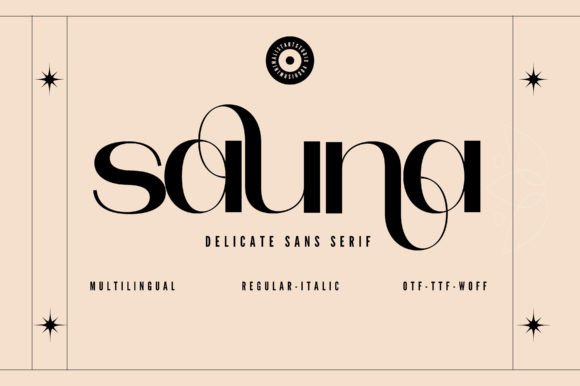
Are you looking for a font that screams elegance and sophistication? Look no further than Sauna Font! Created by Minimalistartstudio, Sauna Font is the epitome of class and refinement in the world of typography.
Sauna Font is a sans-serif font that is perfect for headlines and other eye-catching design elements. Its clean lines and minimalist approach make it a popular choice for high-end brands, luxury fashion labels, and elegant websites. This font exudes sophistication and style, making it the perfect choice for anyone looking to make a bold statement with their design work.
One of the standout features of Sauna Font is its versatility. Whether you're designing a website, creating a logo, or putting together a brochure, this font will add a touch of class and elegance to your work. It's the perfect choice for anyone looking to elevate their design game and make a lasting impression.
But Sauna Font isn't just stylish - it's also incredibly practical. Its clean lines and simple design make it incredibly easy to read, even at smaller font sizes. This makes it a great choice for any project where readability is a top priority.